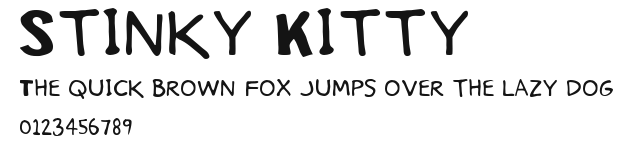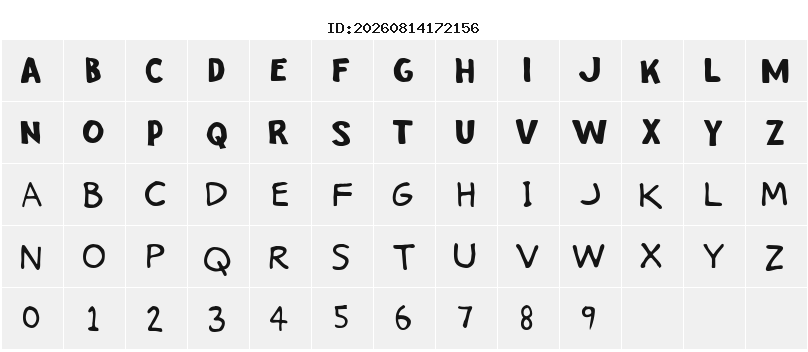
• Font Name: Stinky Kitty
• Full Font Name: Stinky Kitty
About Stinky Kitty.ttf
Stinky Kitty.ttf is a modern, elegant sans-serif font designed for ultimate readability and visual harmony. Perfect for branding, headlines, web design, and print materials.